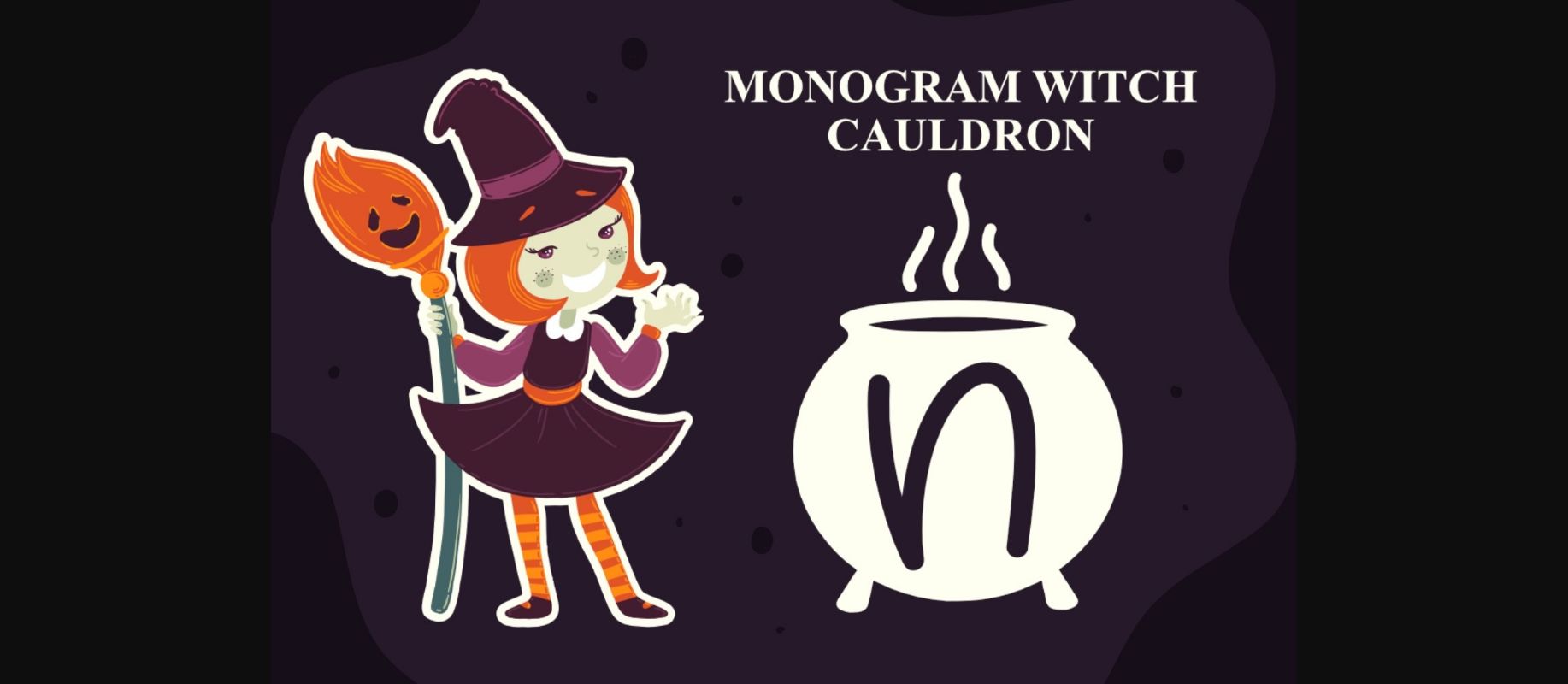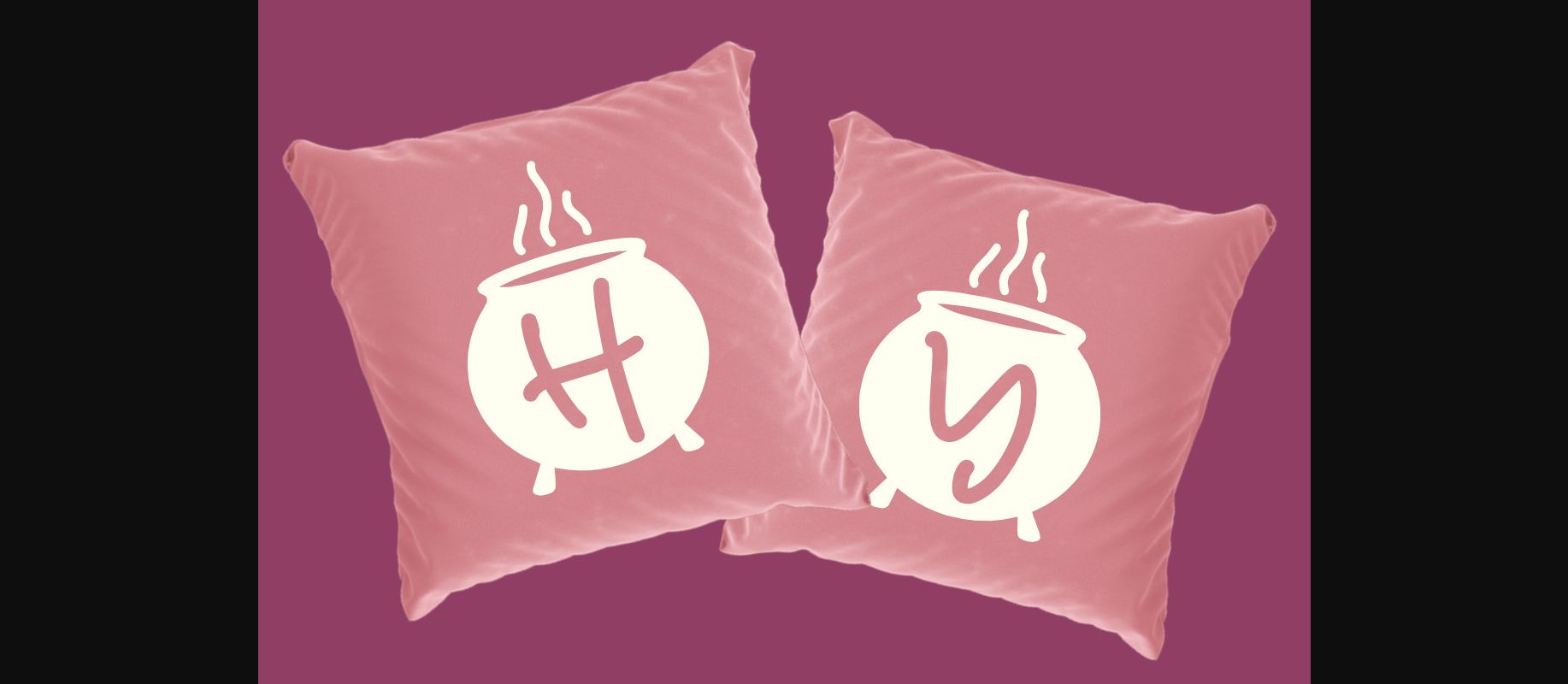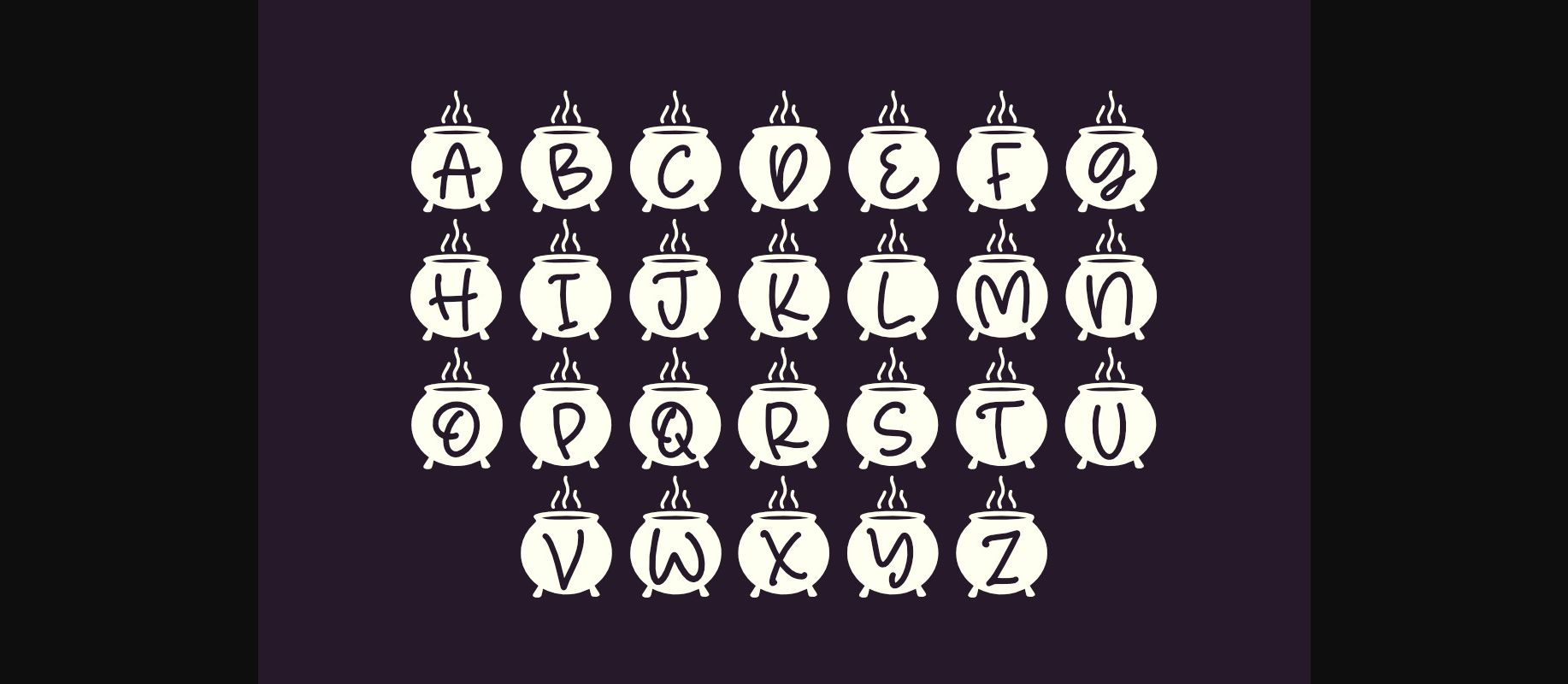
Monogram Witch Cauldron Font
About Monogram Witch Cauldron Font
Monogram Witch Cauldron is a fun and spooky decorative font. It is perfectly suitable for any Halloween-related project or crafty idea! The only limit is your imagination.